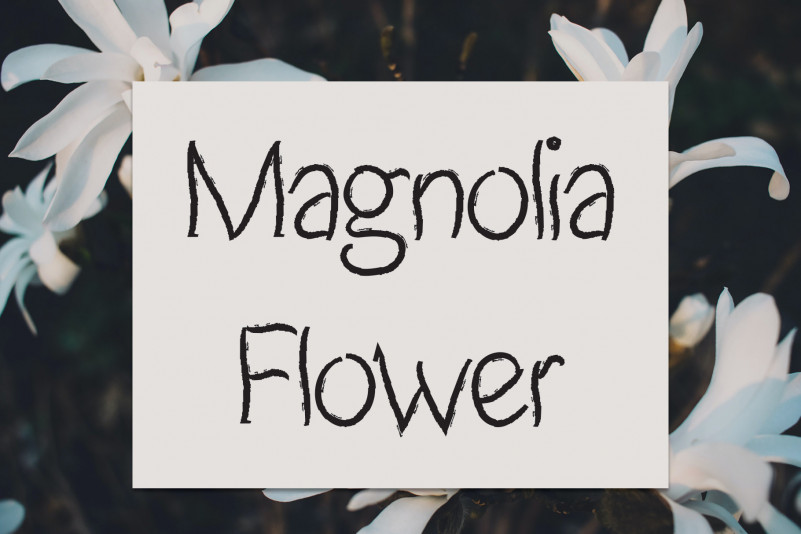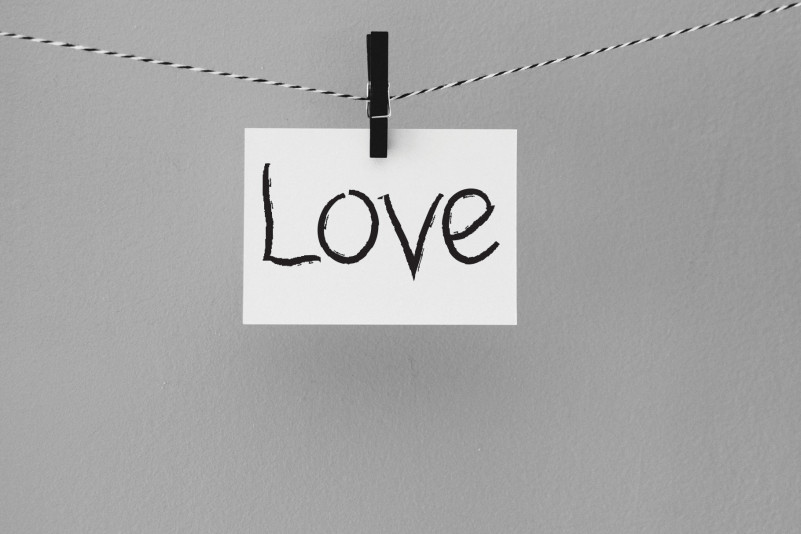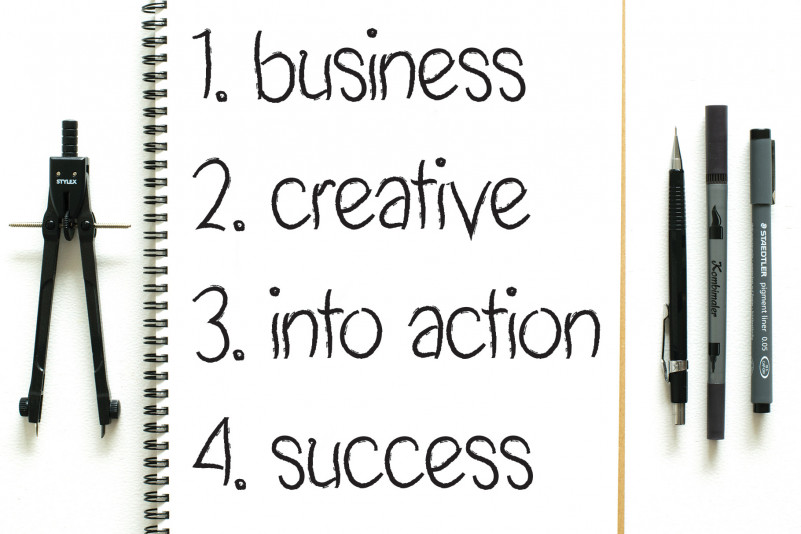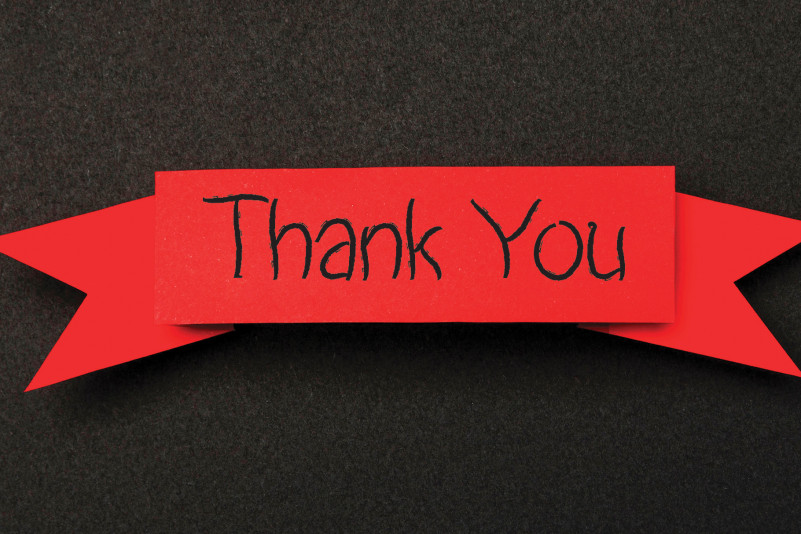
Magnolia Flower Script Font
Magnolia Flower Script Font is a simple and dainty handwritten font. Dreamy and sweet, this font will easily become your favorite font choice, no matter the